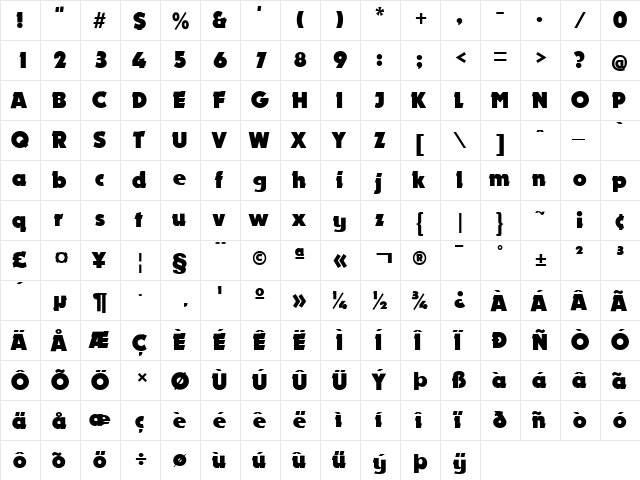
Nougat Regular
Design Context for Nougat Typeface
Nougat is a composed and adaptable typeface that performs quietly and consistently across a wide range of design contexts.